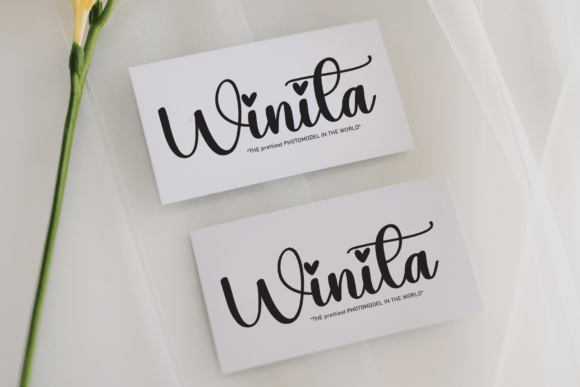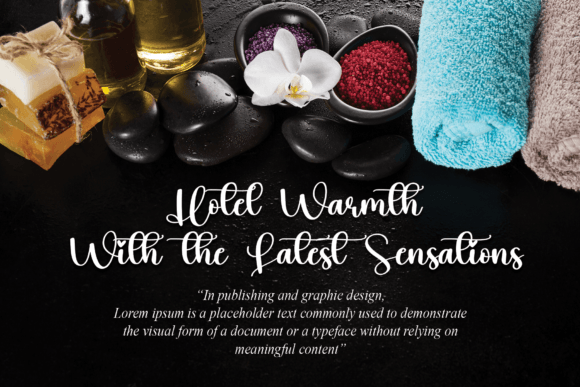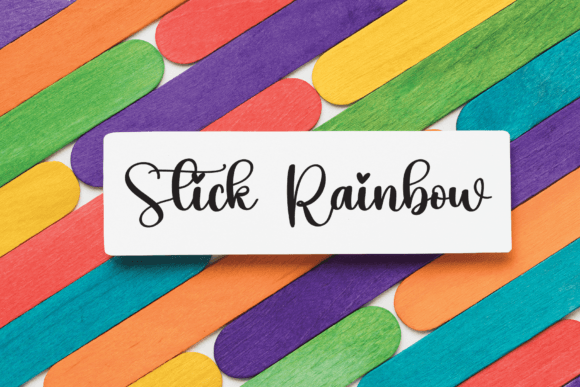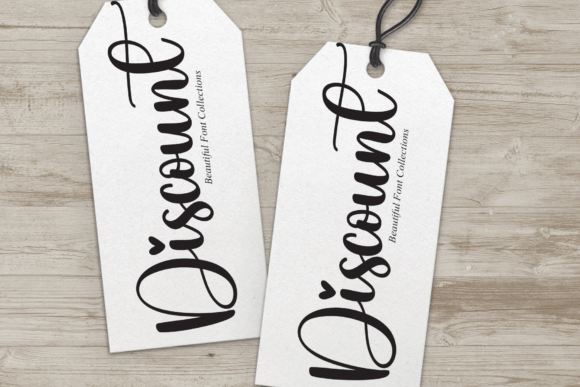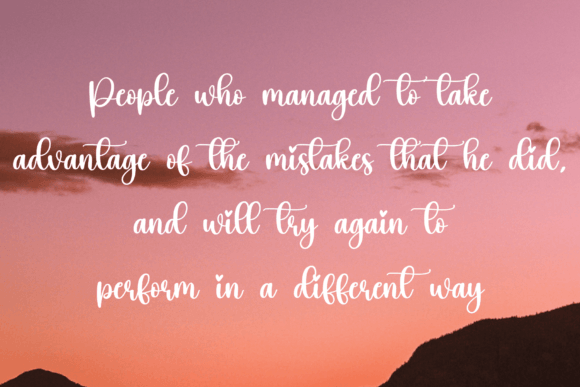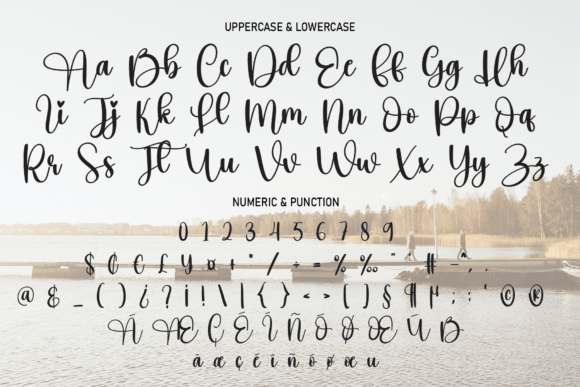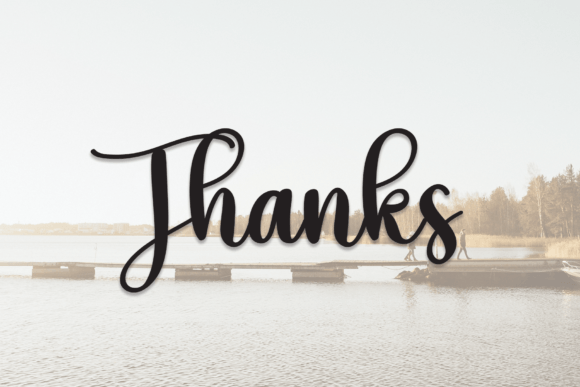
Daily Font
About Daily Font
Certainly, “Daily’s” beautiful letters are incredibly versatile, making them an excellent choice for a variety of creative projects. Their elegant and handwritten style adds a personal touch and artistic flair to any design, making them perfect for a wide range of applications.
In **wall displays**, “Daily’s” beautiful letters can transform empty walls into captivating art pieces. Whether displaying motivational quotes, artistic expressions, or decorative messages, the font’s graceful letters create a visually appealing focal point, enhancing the ambiance of any space.
When it comes to **wedding invitations**, the font’s elegance and charm set the perfect tone for a romantic celebration. The beautiful letters add a touch of sophistication to the invitations, making them visually stunning and unforgettable. Brides and grooms seeking a blend of timeless beauty and contemporary style often choose “Daily’s” for their wedding stationery, ensuring their invitations leave a lasting impression on their guests.
In the realm of **social media**, a unique and eye-catching logo is essential for brand recognition. “Daily’s” beautiful letters lend themselves perfectly to **social media post logos**, creating a distinctive and stylish brand identity. Whether used on profile pictures, cover photos, or promotional posts, the font’s handwritten elegance adds a touch of authenticity, making the brand more memorable and engaging to the audience.
**Advertisements** require visual elements that grab attention and convey a message effectively. The beautiful letters of “Daily’s” can serve as a powerful tool in advertising campaigns. Their elegant and artistic appeal makes them suitable for various products and services, enhancing the overall design of print and digital ads and making them more appealing to potential customers.
In **product packaging and design**, the font’s beautiful letters enhance the brand’s image and add a sense of luxury. From labels to promotional materials, “Daily’s” handwritten style elevates the packaging design, making the products more visually appealing and desirable to consumers. Its versatility allows it to adapt to different product categories, enhancing the overall presentation.
For **photography**, a subtle yet elegant touch is essential. “Daily’s” beautiful letters can be used as a **watermark**, adding a signature look to photographs without distracting from the main subject. The font’s delicate and refined appearance ensures that the watermark blends seamlessly with the images, preserving their visual integrity while adding a touch of sophistication.
In **invitations and stationery**, “Daily’s” beautiful letters add a sense of refinement to every piece. Whether used for formal invitations, personalized stationery, or business correspondence, the font’s elegant letters create a lasting impression. Its handwritten taste adds a sense of warmth and sincerity, making the messages more heartfelt and meaningful.
In summary, “Daily’s” beautiful letters are a valuable asset for any project that requires a handwritten taste. Their versatility and timeless elegance make them suitable for wall displays, wedding invitations, social media post logos, advertisements, product packaging, labels, photography, watermarks, invitations, stationery, and a wide range of other creative endeavors. By incorporating “Daily’s” into your projects, you infuse them with a touch of sophistication and artistry, ensuring they leave a lasting impact on your audience.